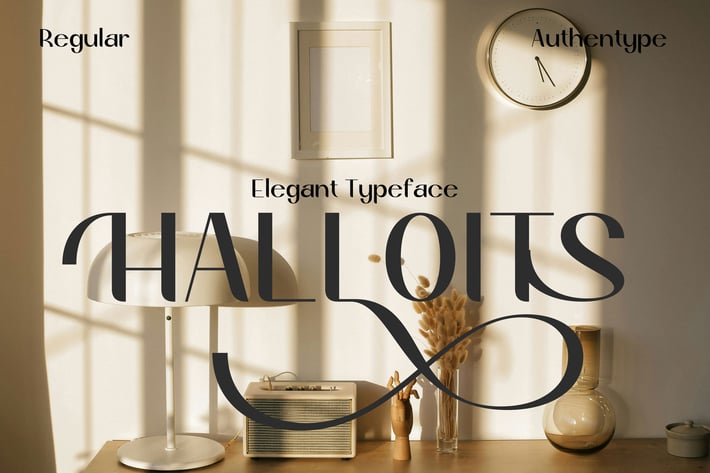
Halloits Elegant Typeface
Halloits is an elegant typeface that embodies sophistication and grace. Its distinctive curves and refined lines make it perfect for creating a timeless and stylish aesthetic. With a blend of modern and classic elements, Halloits stands out as a versatile font choice for various design projects.
Uses:
Branding and Identity:
Ideal for logos, business cards, and corporate stationery.
Adds a touch of elegance to luxury brands and high-end products.
Editorial Design:
Perfect for magazine covers, headlines, and article titles.
Enhances the visual appeal of fashion, lifestyle, and art publications.
Event Invitations:
Suitable for wedding invitations, save-the-dates, and event programs.
Conveys sophistication and style for formal events and celebrations.
Packaging Design:
Works well on product labels, packaging, and tags.
Adds a premium feel to cosmetics, perfumes, and gourmet food products.
Web Design:
Great for website headers, banners, and promotional materials.
Ensures readability while maintaining a stylish appearance.
Advertising and Marketing:
Effective in print and digital advertisements.
Captures attention with its elegant and distinctive look.
Social Media Graphics:
Enhances the visual appeal of posts, stories, and promotional content.
Creates a cohesive and polished brand presence on social platforms.